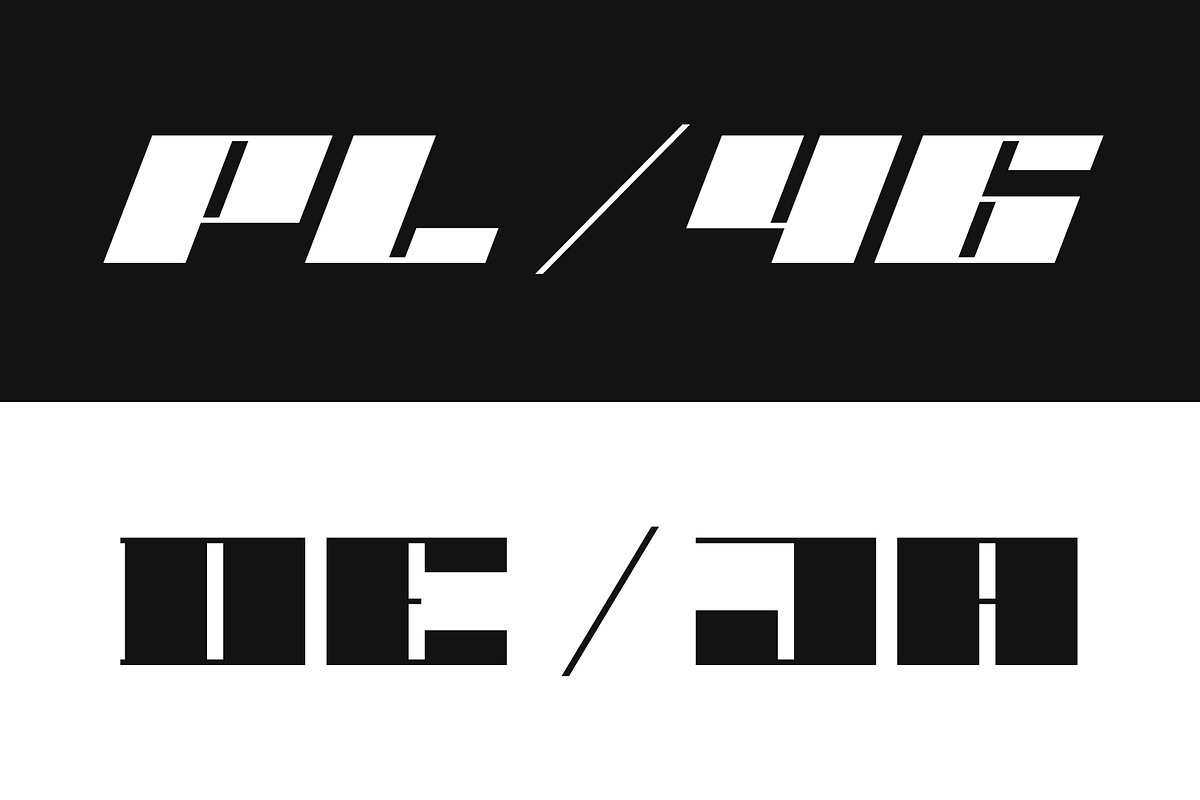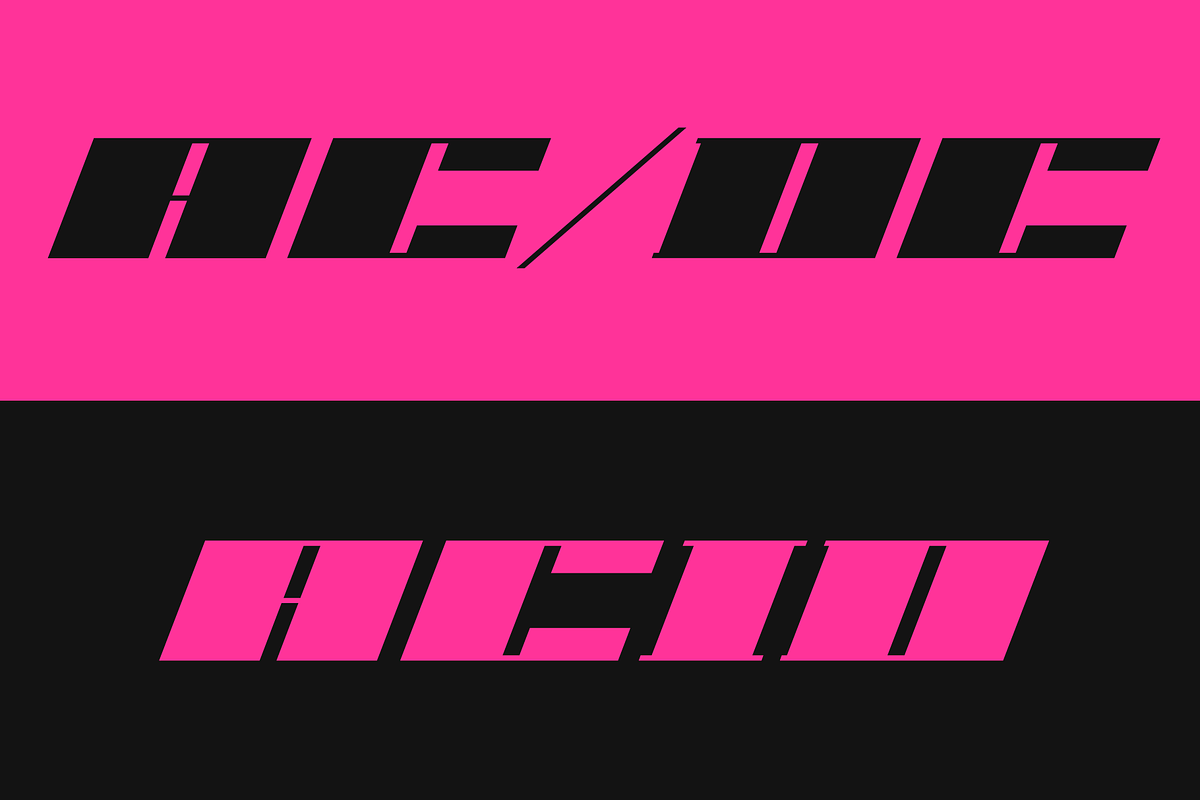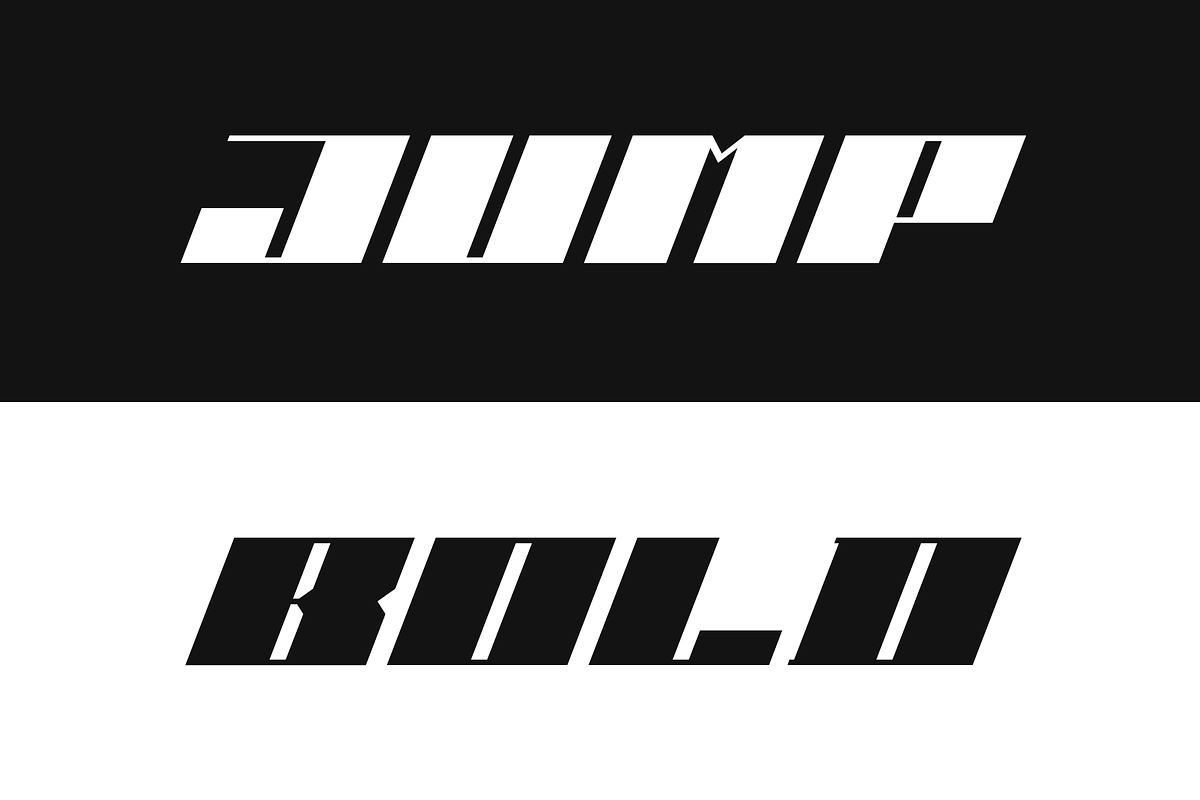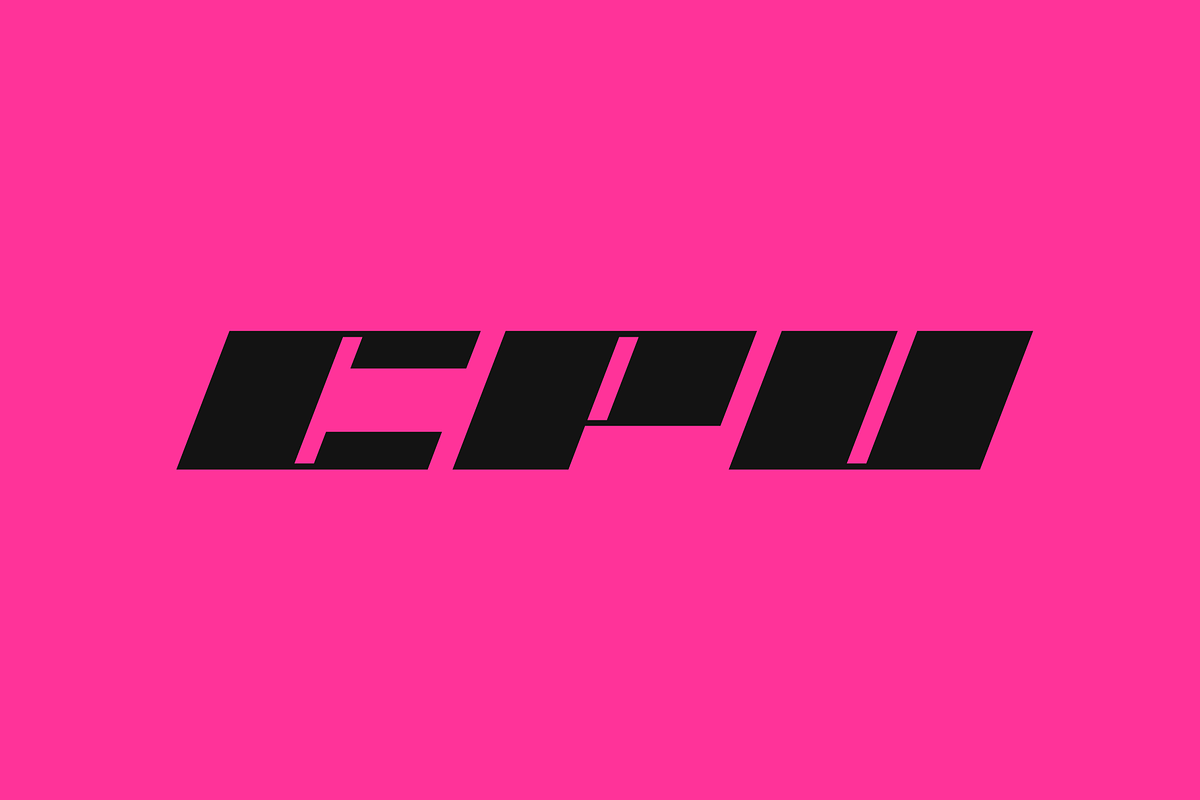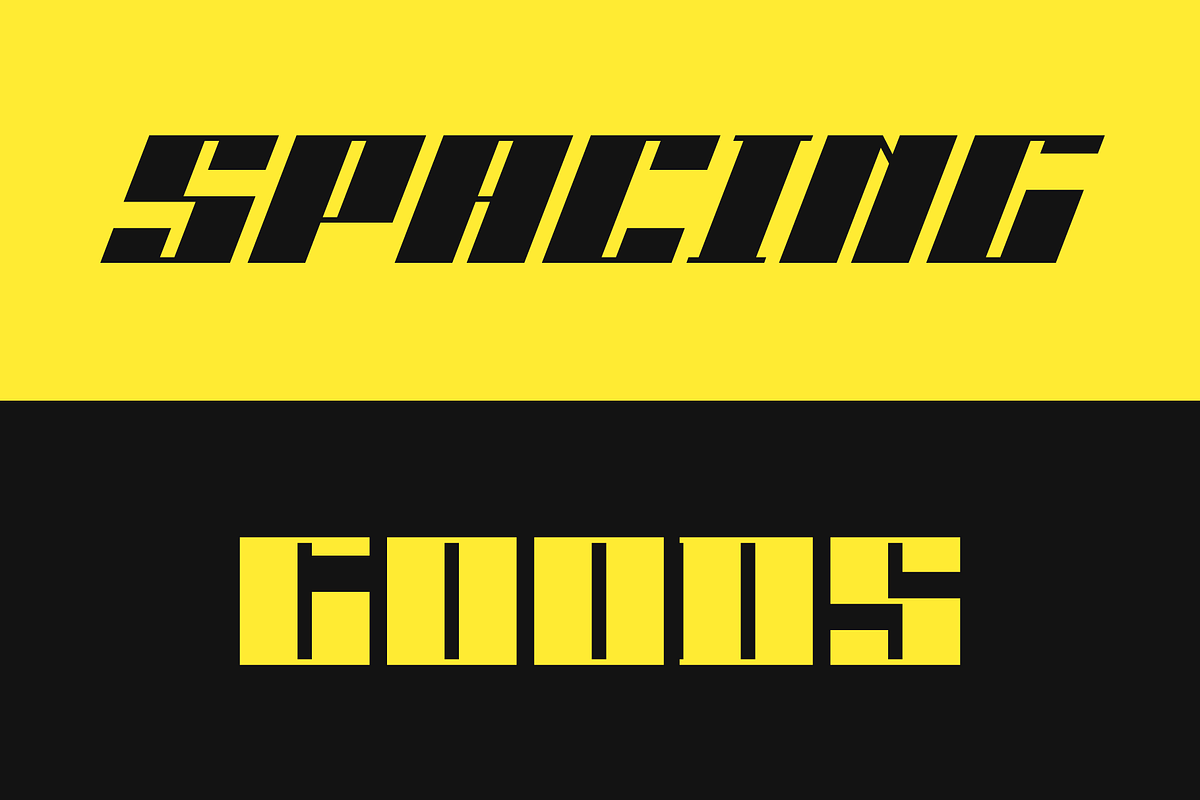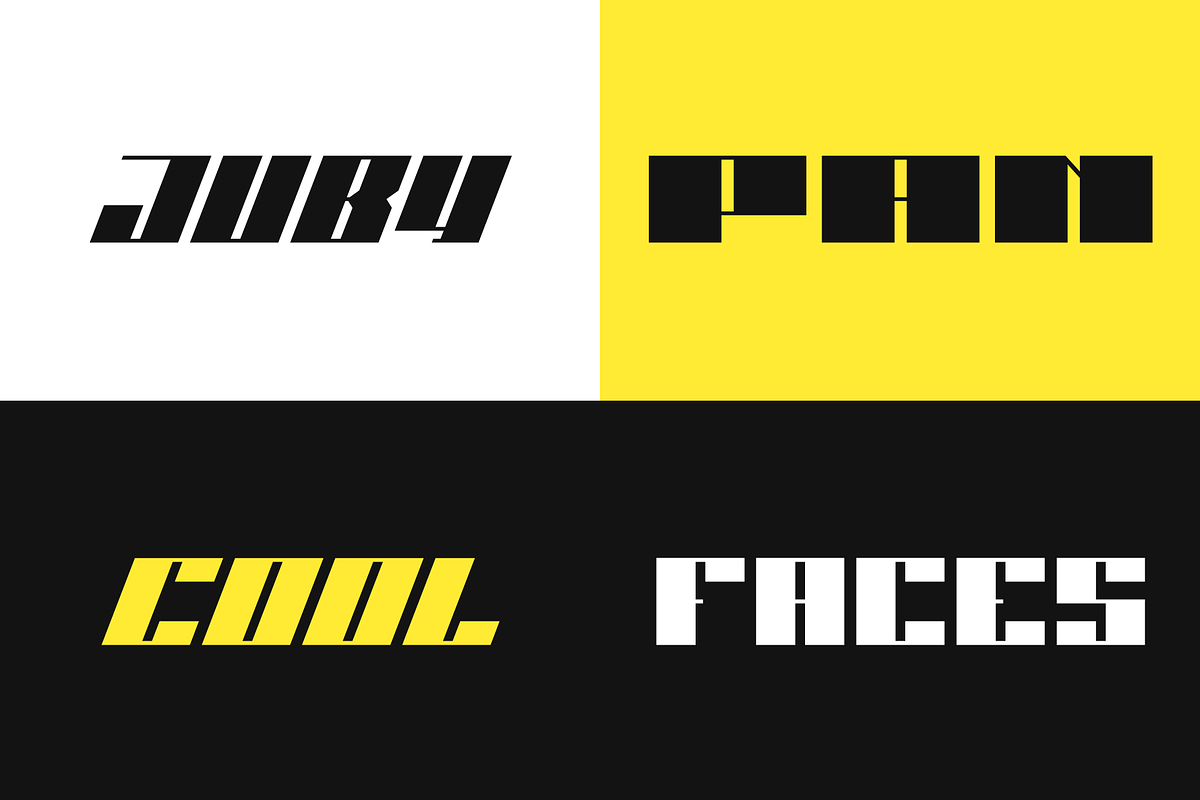
JUBY Font Family
JUBY is a minimalist font family with a geometric and sophisticated look.
Designed especially for display purposes or even brand identity and logos. Use it for headlines, posters, visual identity, just anything that needs to stand out.
It has been carefully edited, paying special attention to details, making JUBY a safe choice for use at large-scale work.
Font containing uppercase and lowercase characters, numerals and a large range of punctuation (over 260 glyphs). The family has 3 weights with matching italics.